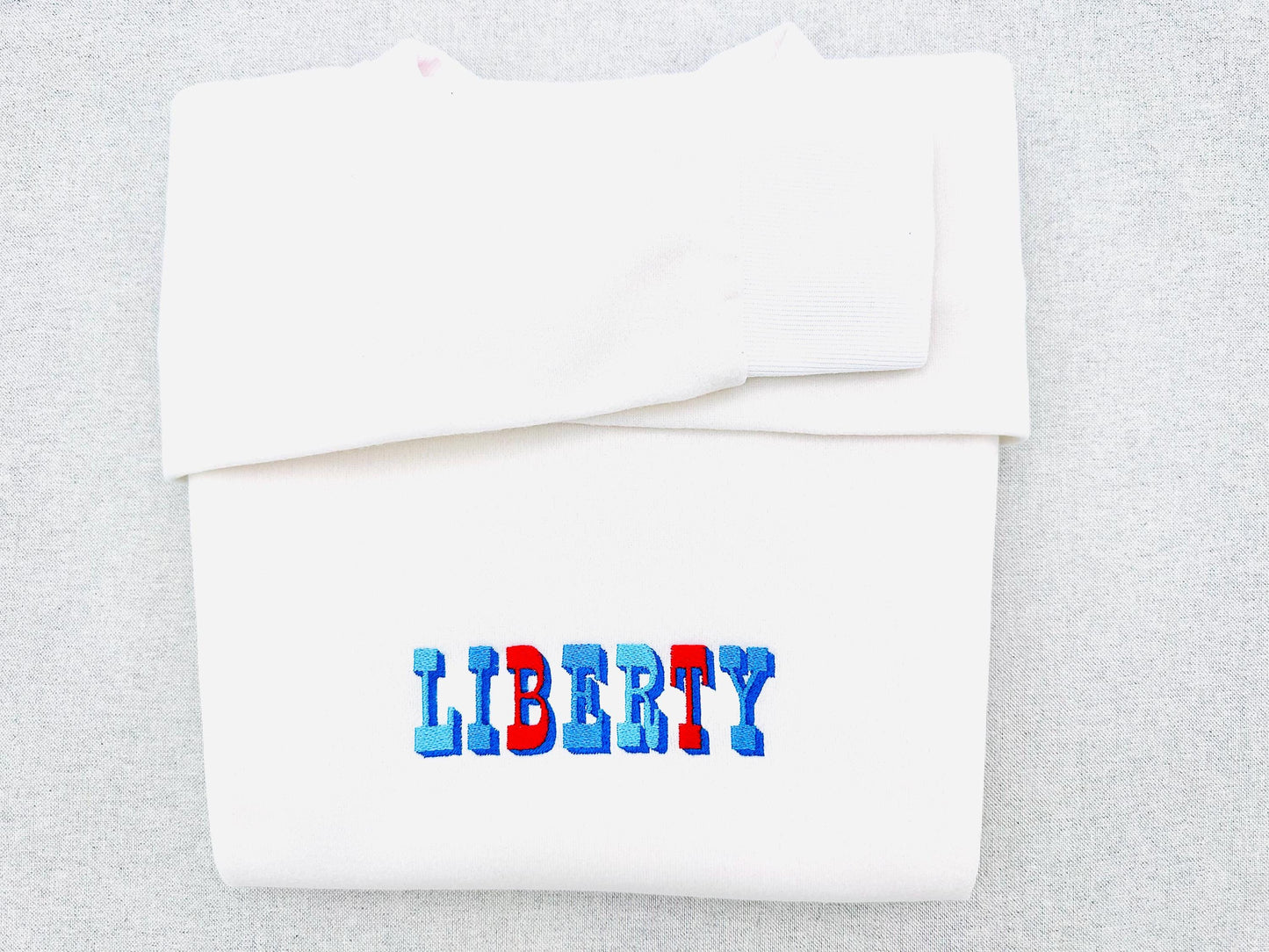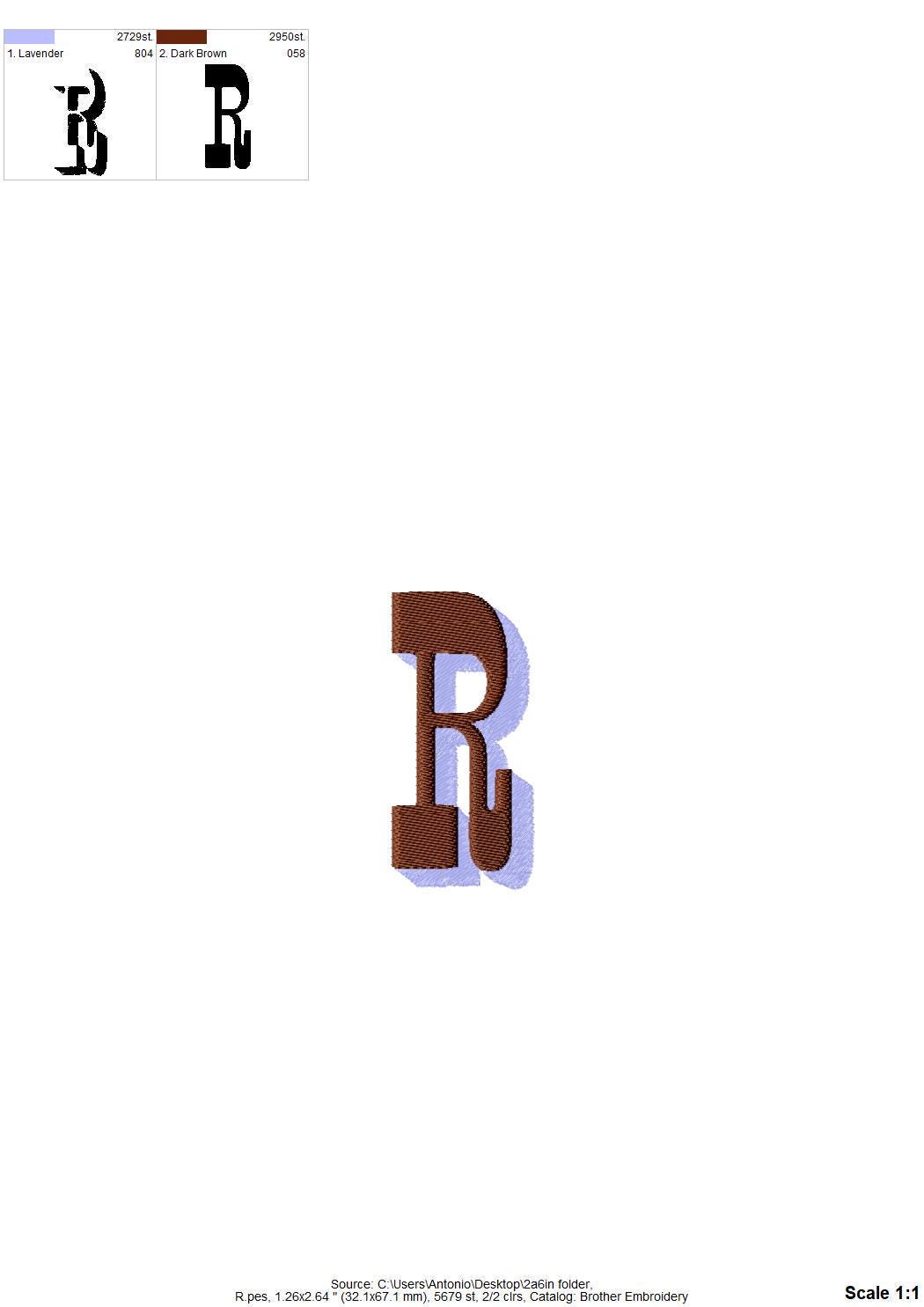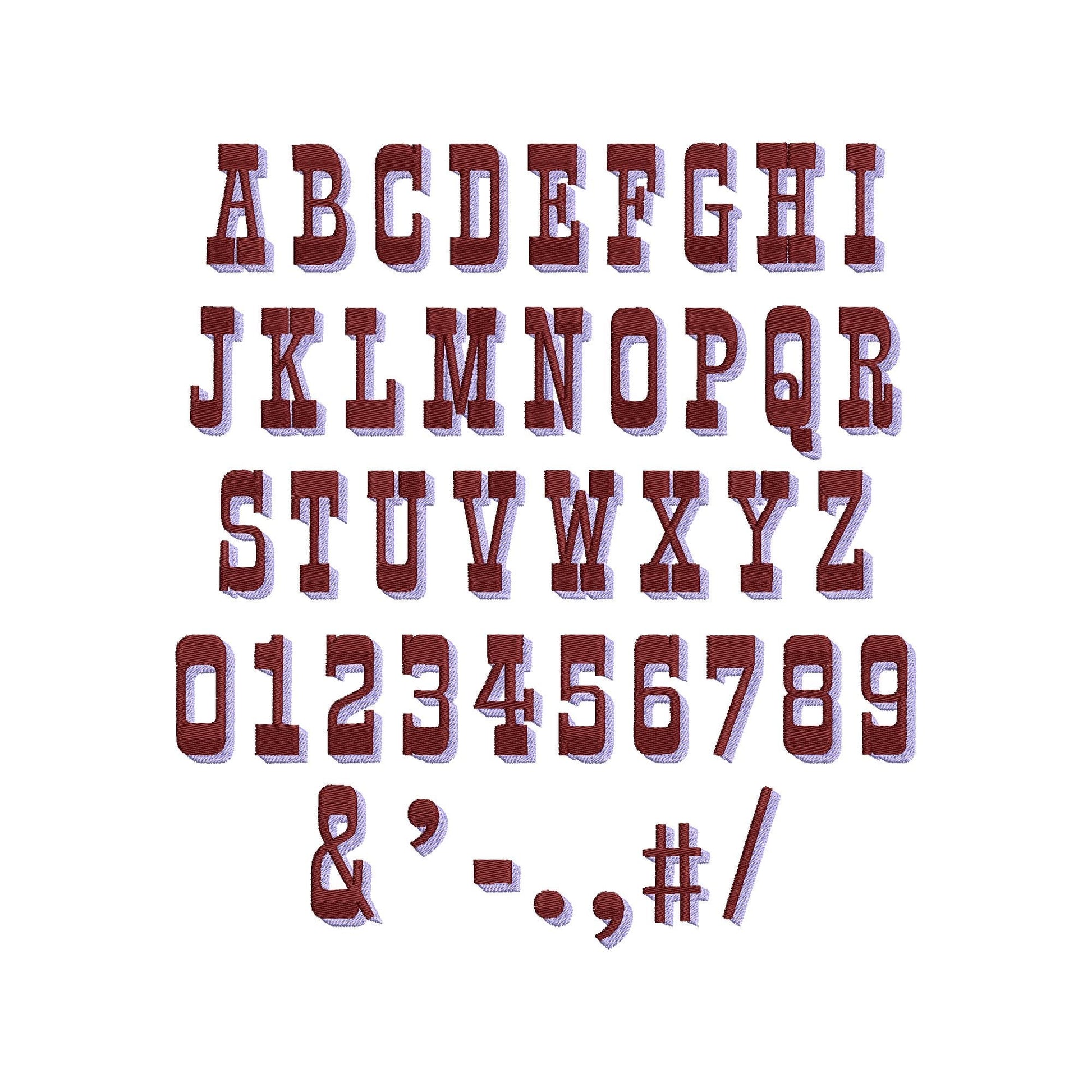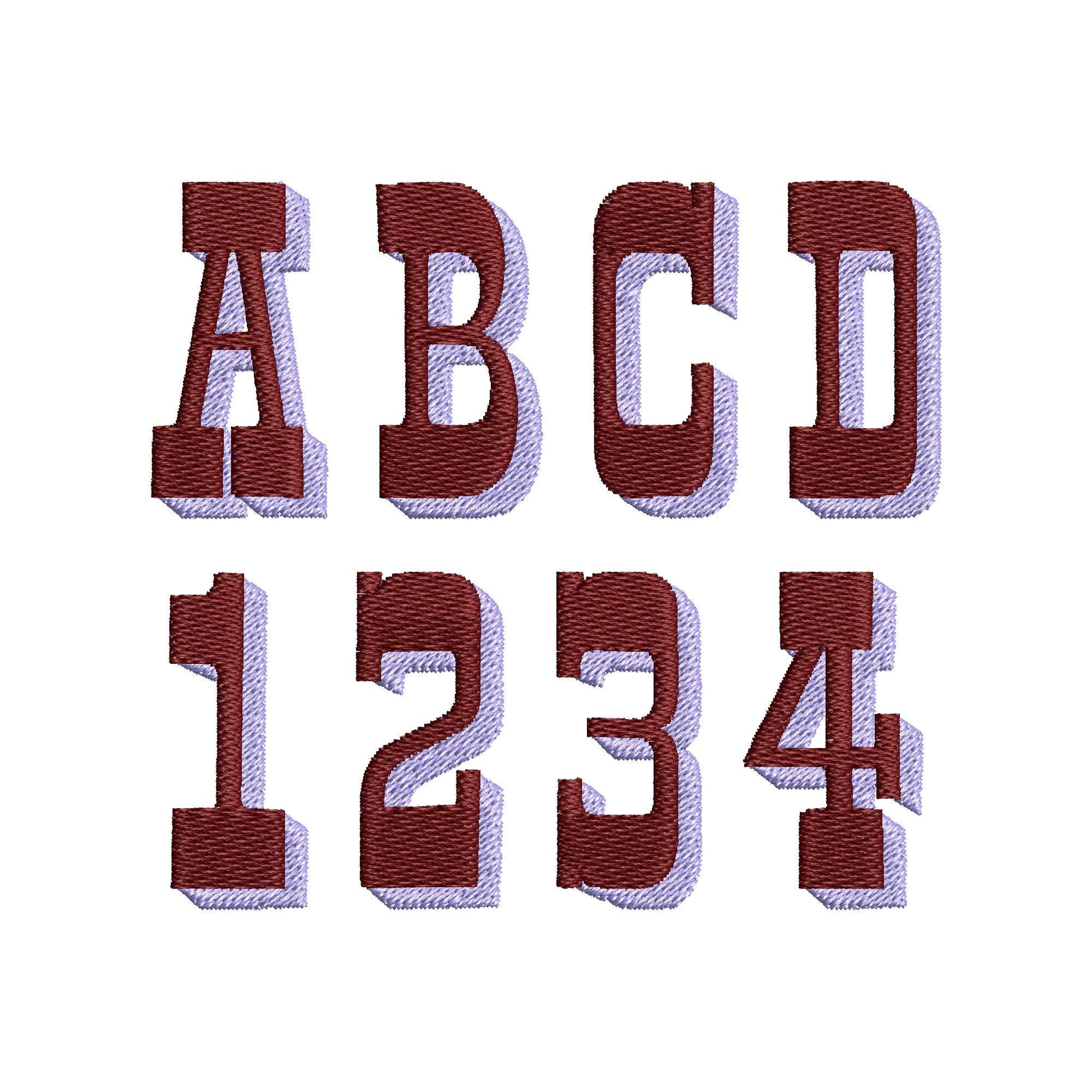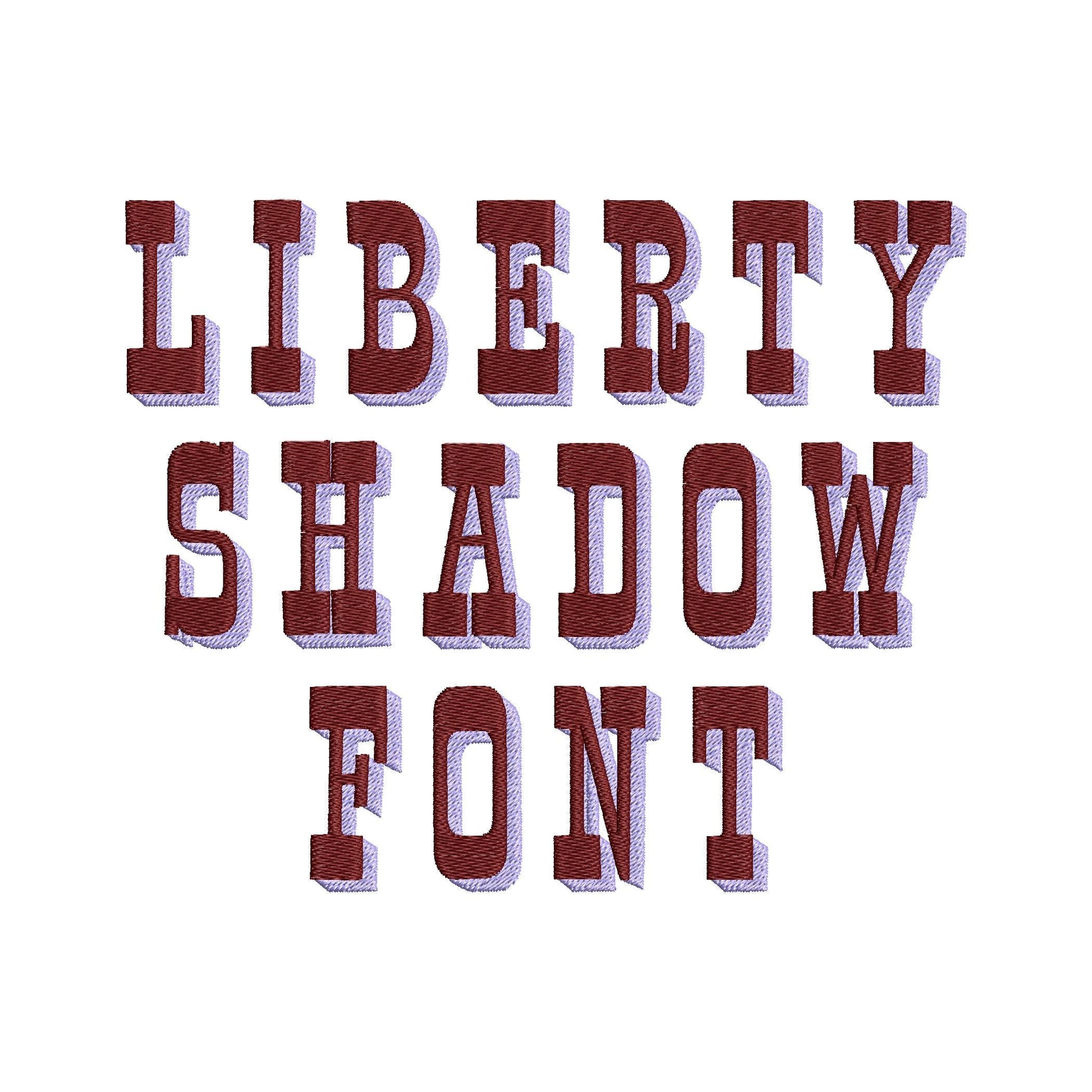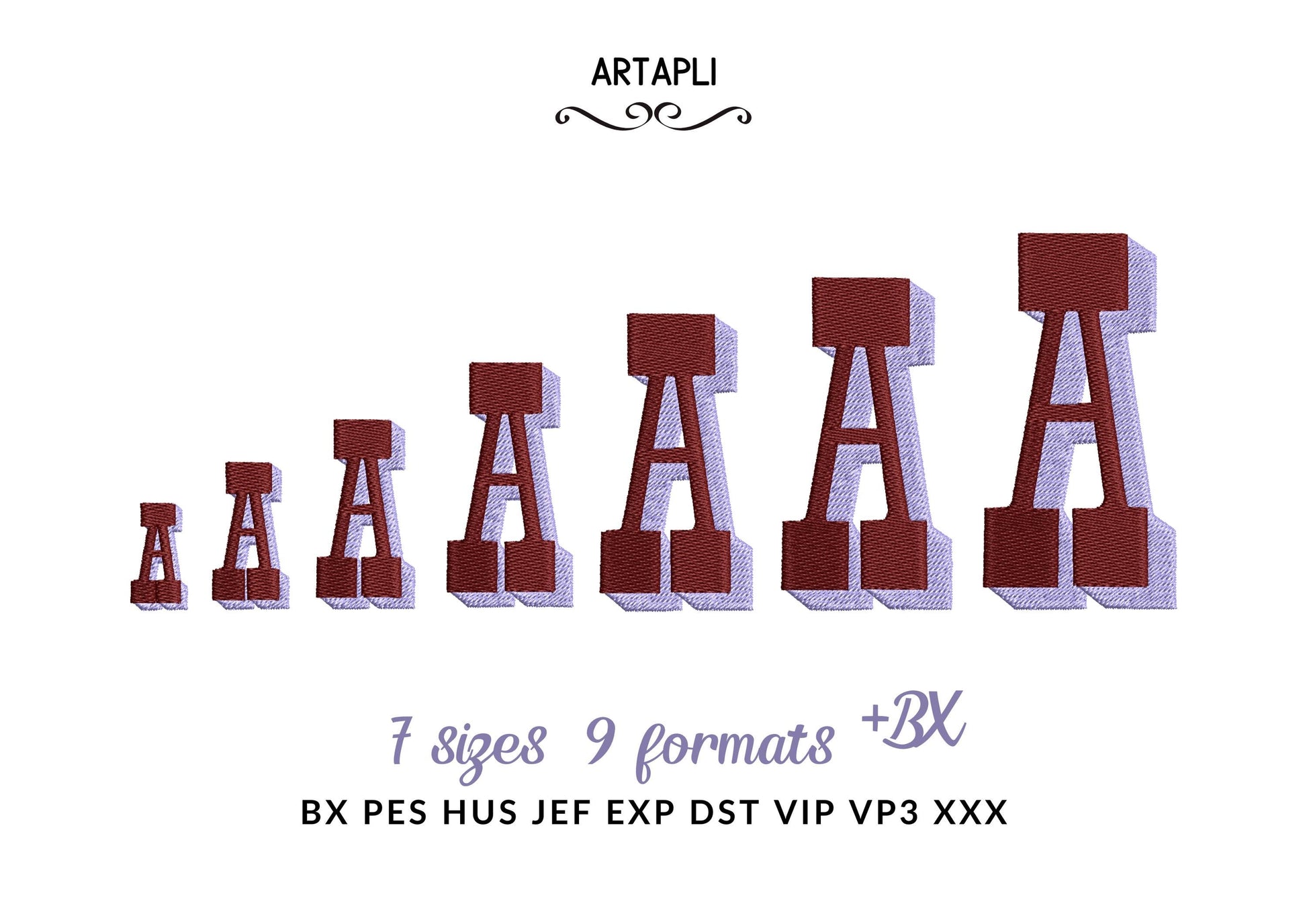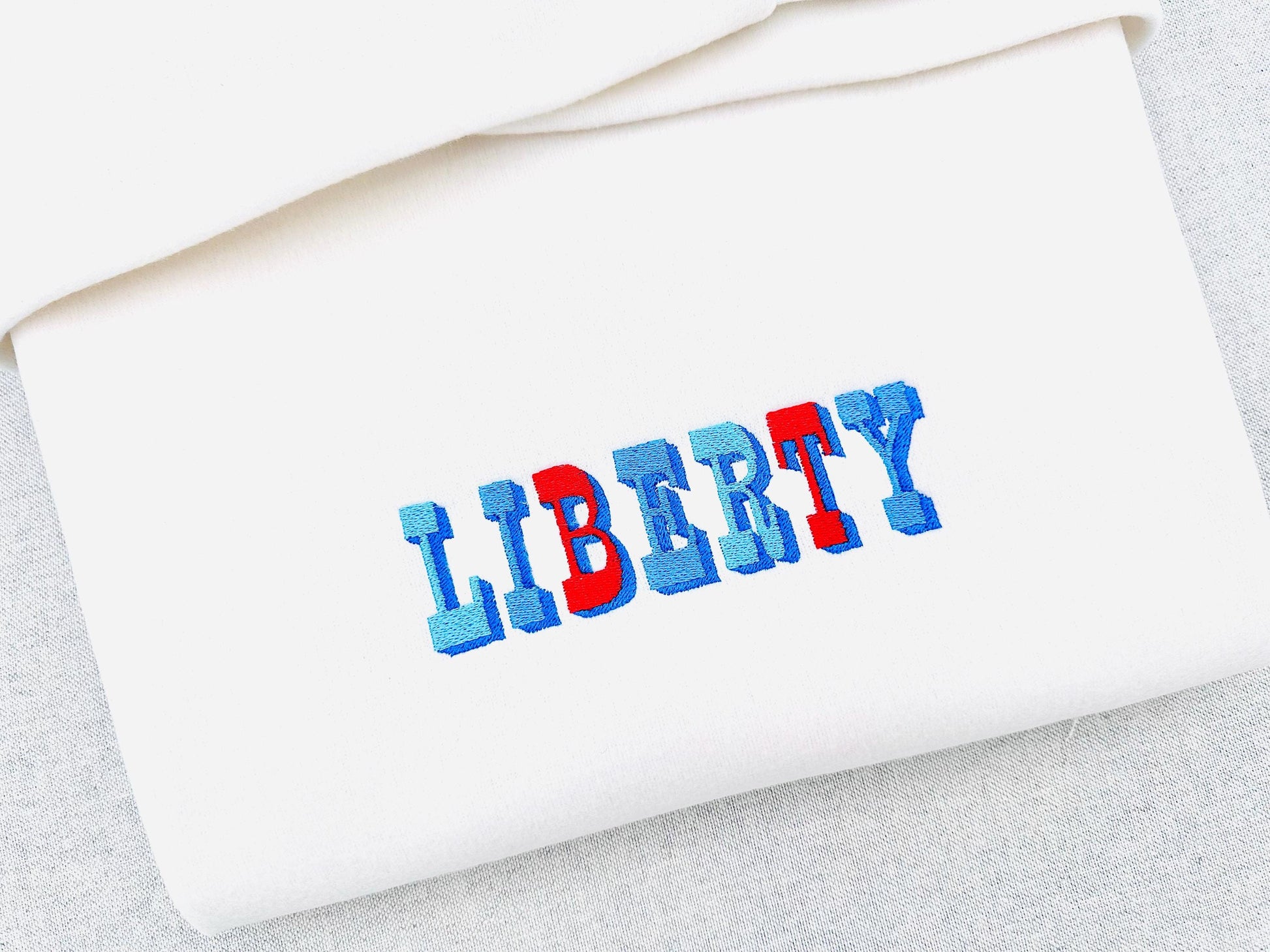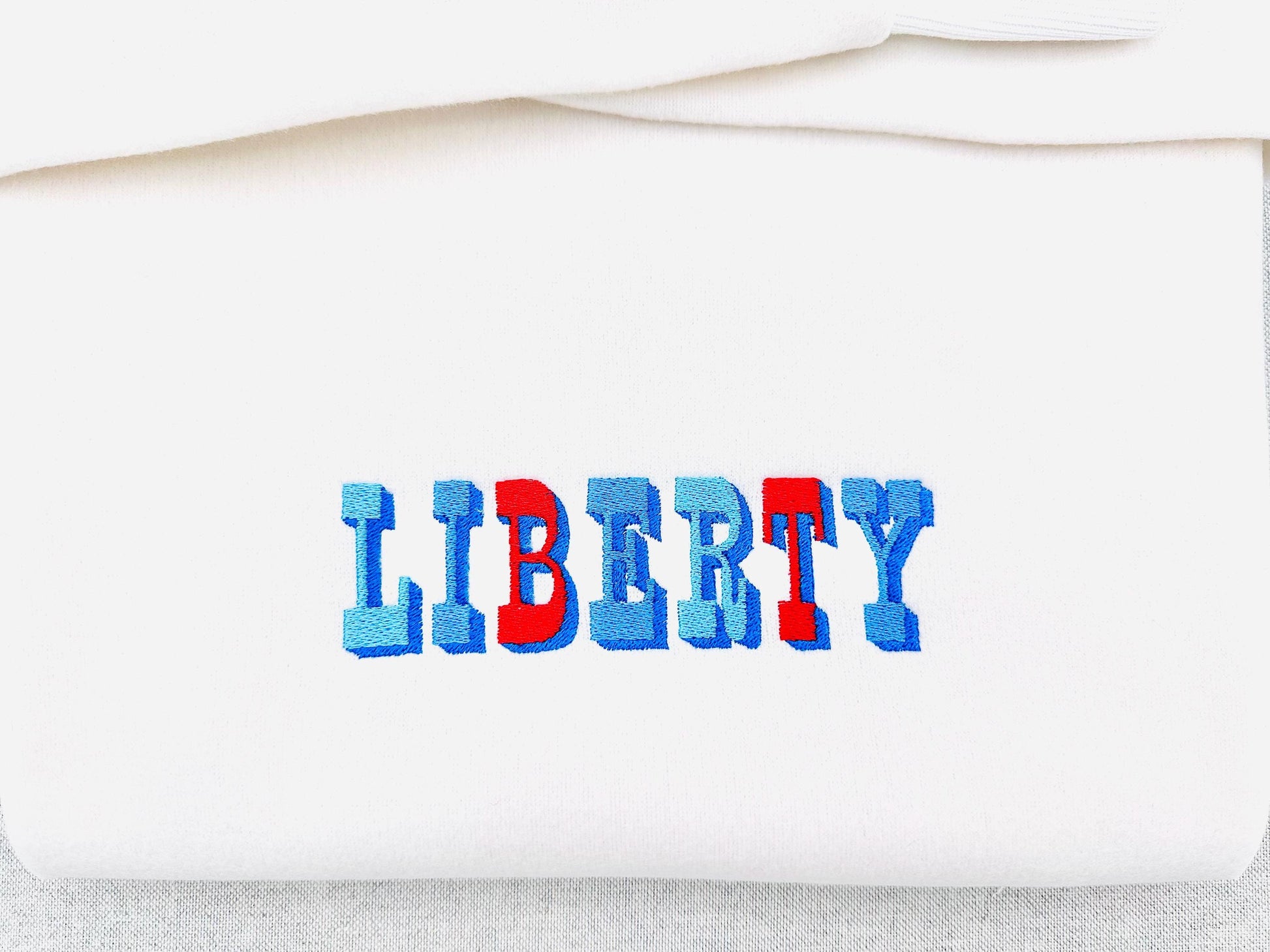
Varsity style Liberty Shadow Font
The letters come in seven sizes: 0.9, 1.3, 1.7, 2.2, 2.6, 3 and 3.3 inches. Includes uppercase letters A-Z, numbers 0-9 and punctuation.
- Liberty shadow font: uppercase letters A-Z, numbers 0-9 and punctuation
- 7 letter sizes, 0.9 to 3.3 in